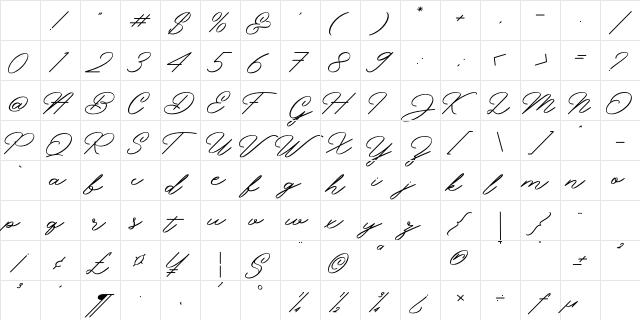
Complete Viceroy Regular glyph index. Displaying only characters natively supported by Viceroy Regular font.
Viceroy is a composed and adaptable typeface that performs quietly and consistently across a wide range of design contexts.